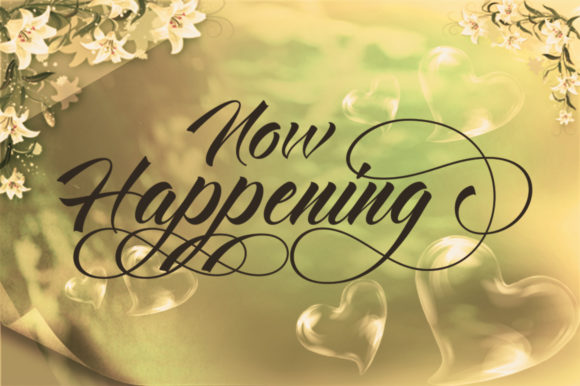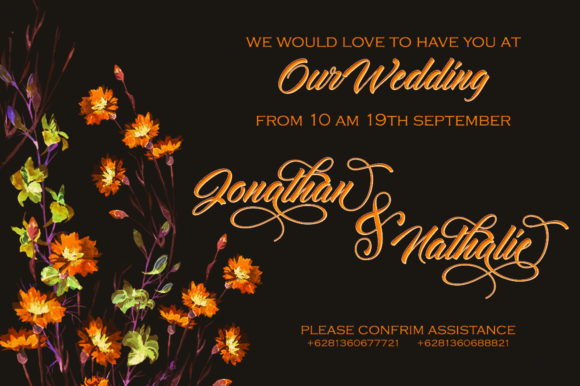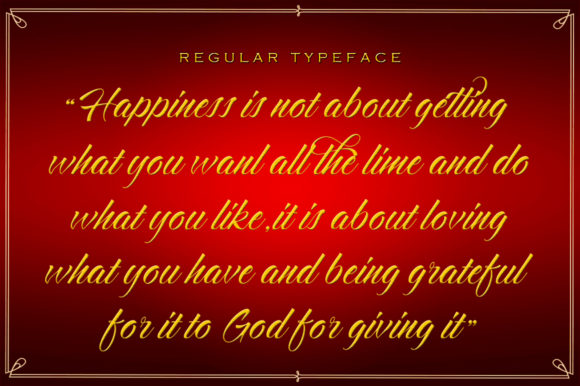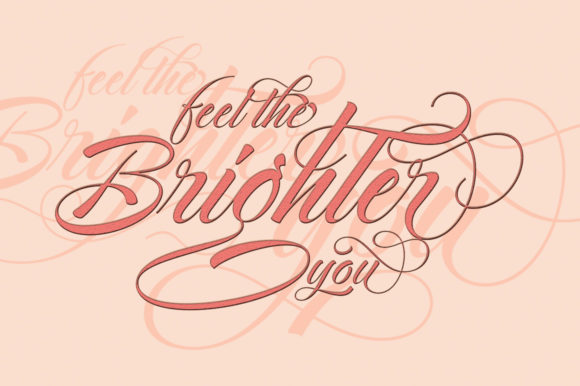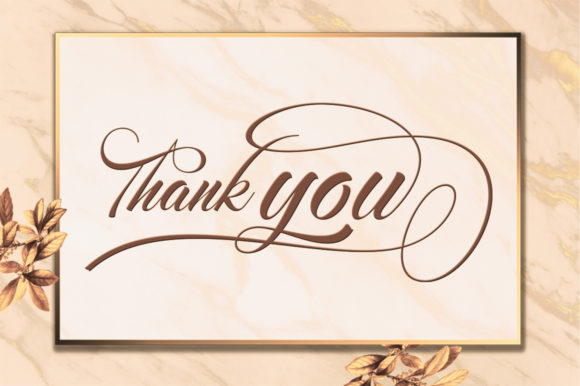
Spotlite Font
About Spotlite Font
Spotlite is an elegant and sophisticated script with a unique style. Use it to add a bold flavor to any design idea.